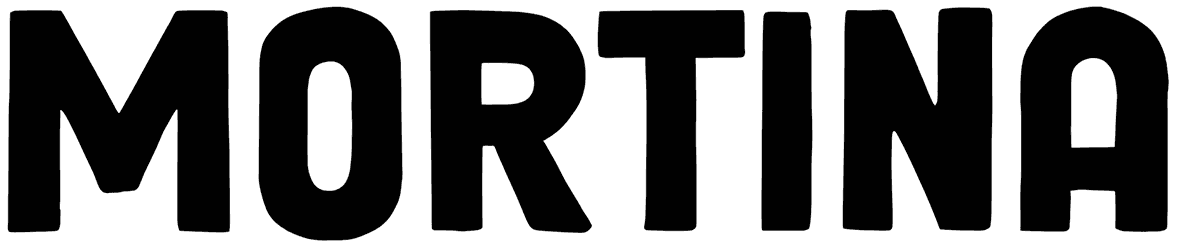
Mortina Font
Are you looking for a retro font to change the mood of your typography into something with a classical feel? So there you go, Mortina is exactly what you need, a fabulous font that creates a vintage effect with bold letters and round edges.
This 80s sans serif font may lack the lowercase of the alphabet and numbers, but the remaining characters are more than enough to help you create something quite remarkable.